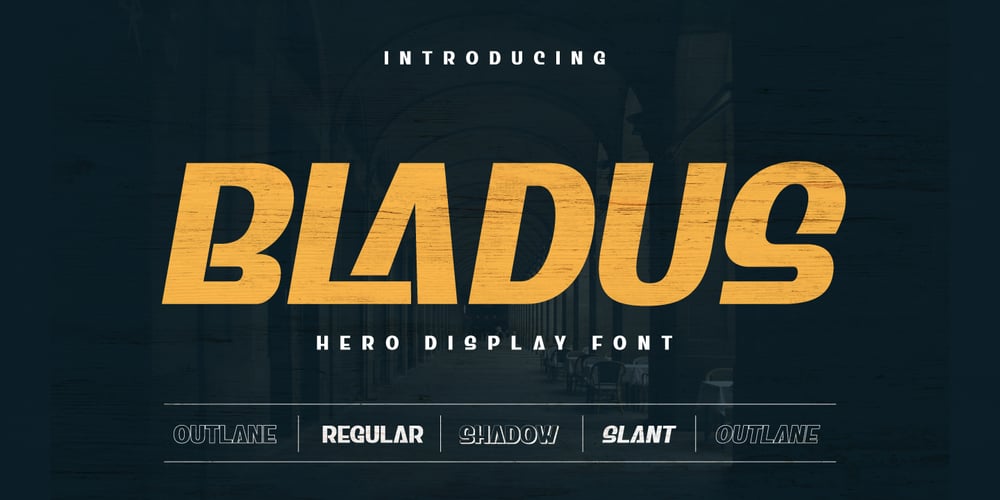
Bladus Font Family was designed by Rozikan and published by Twinletter. Bladus contains 5 styles and family package options. Bladus is more than just a font; it is a symbol of courage that radiates through every character. With a jaw-dropping superhero display style, Bladus is the perfect solution for projects that require a stunning visual appeal.What’s Included : File font All glyphs Iso Latin 1 Alternate, Ligature Simple installations PUA Encoded Characters – Fully accessible without additional design software. Fonts include Multilingual support